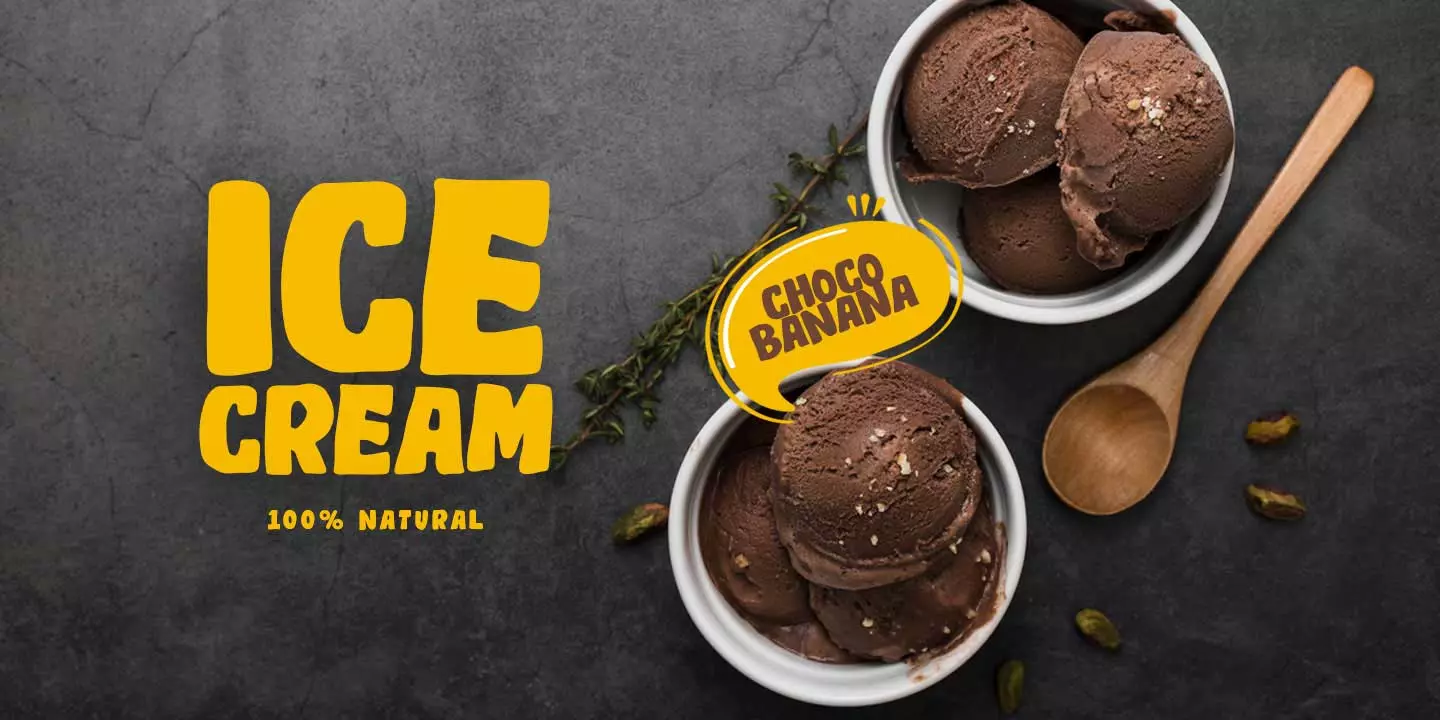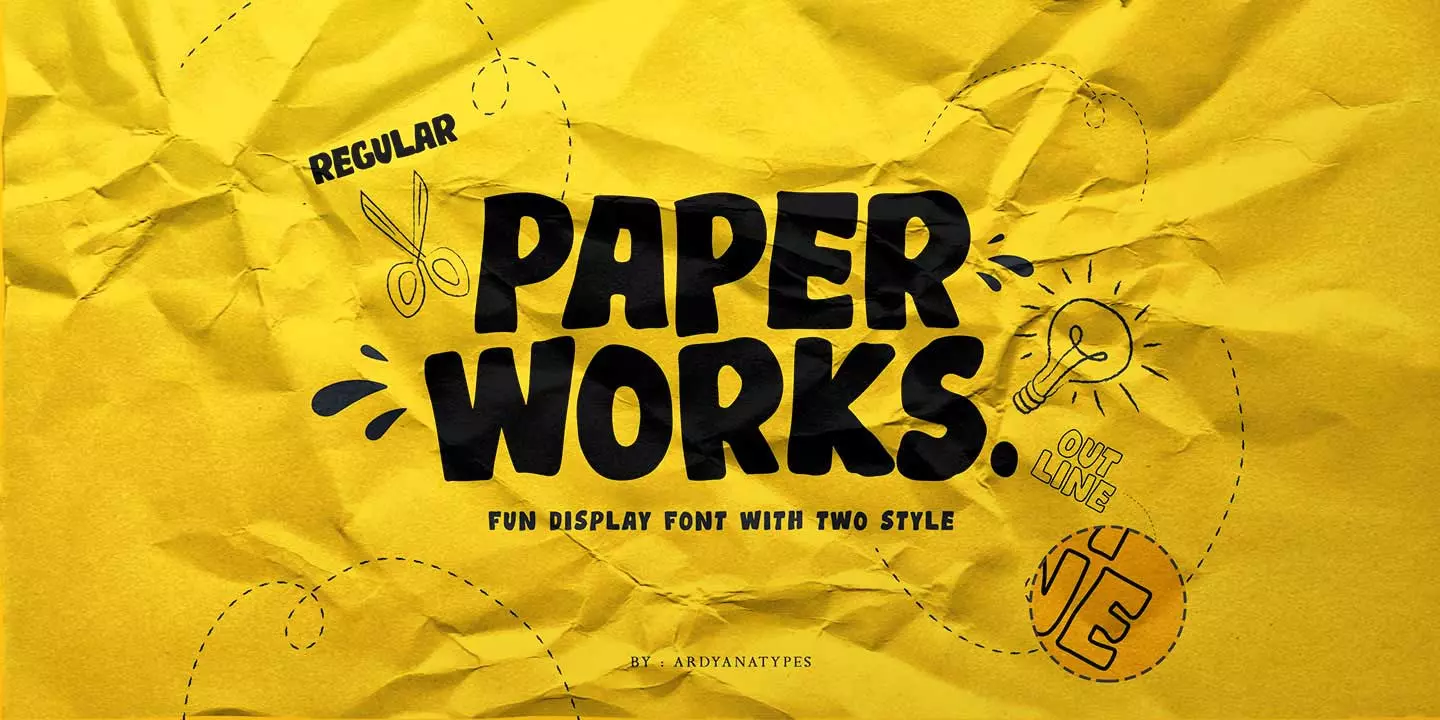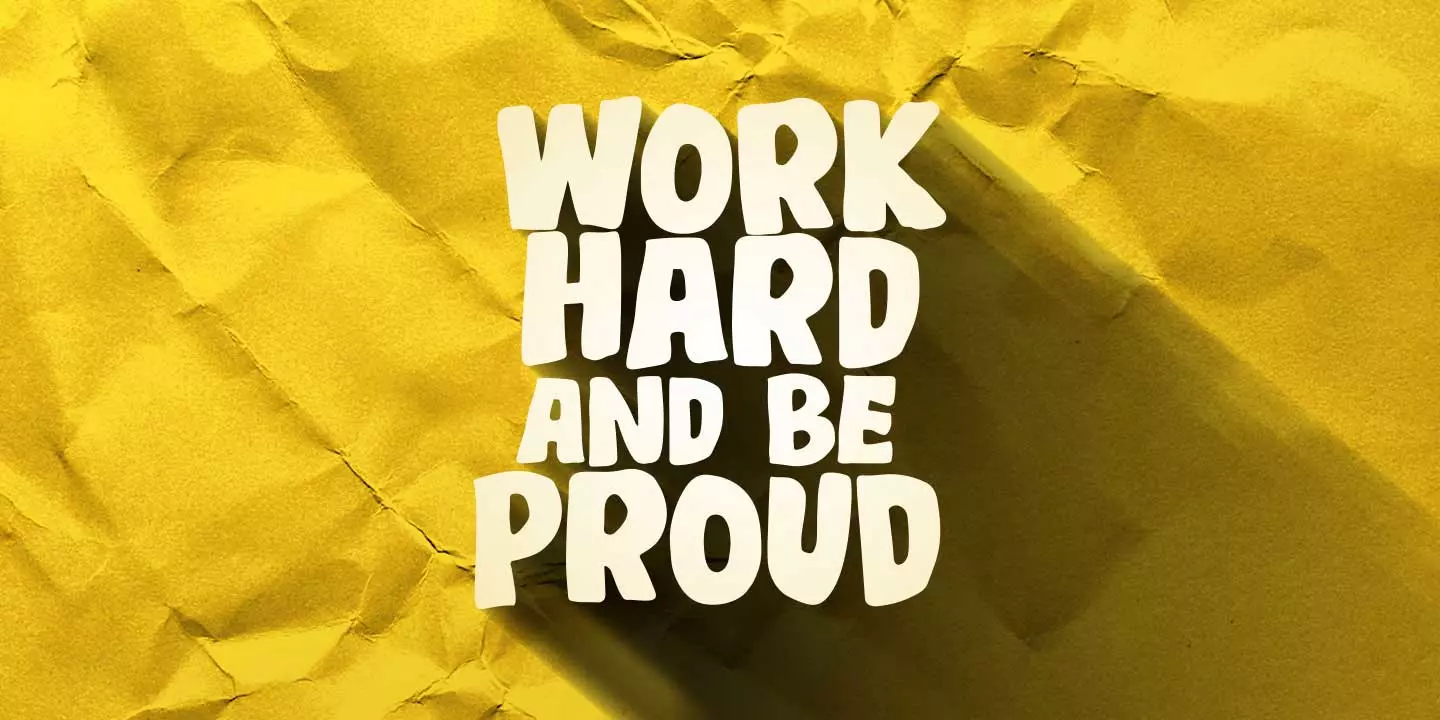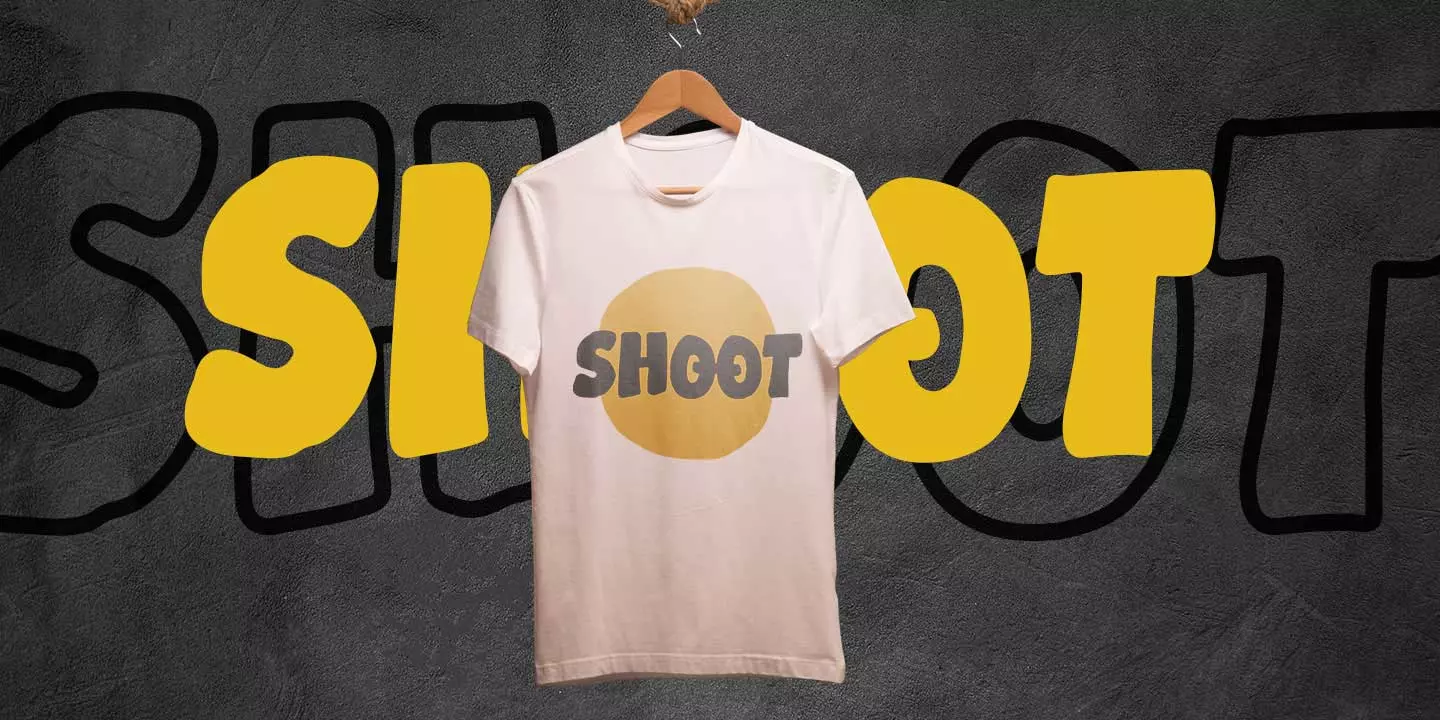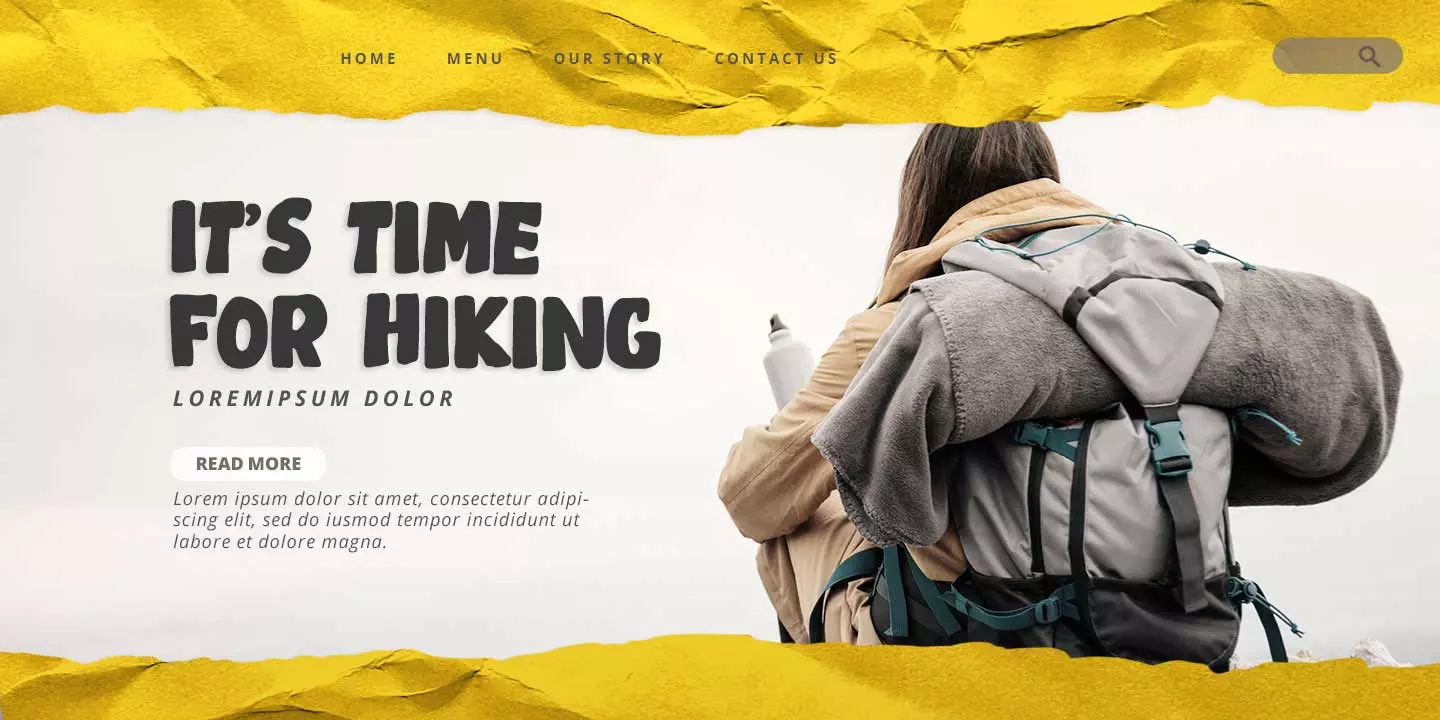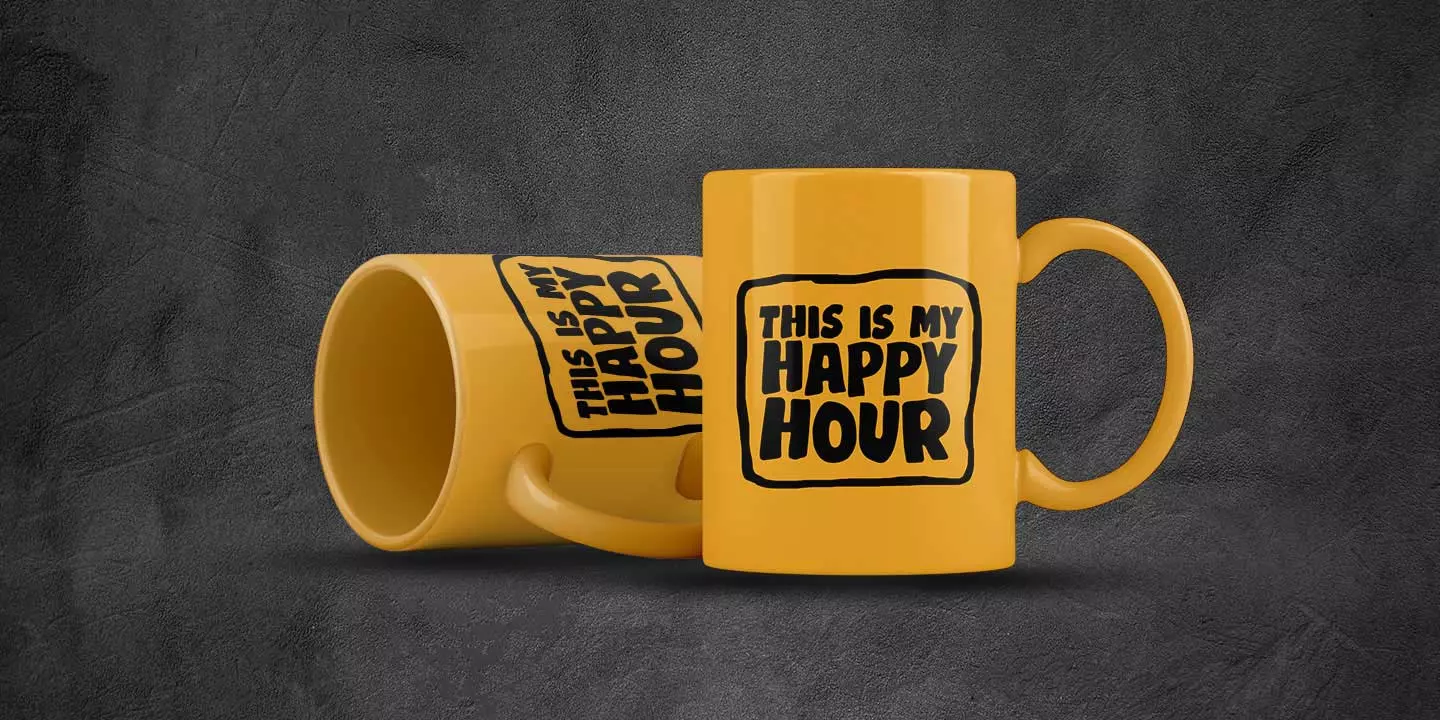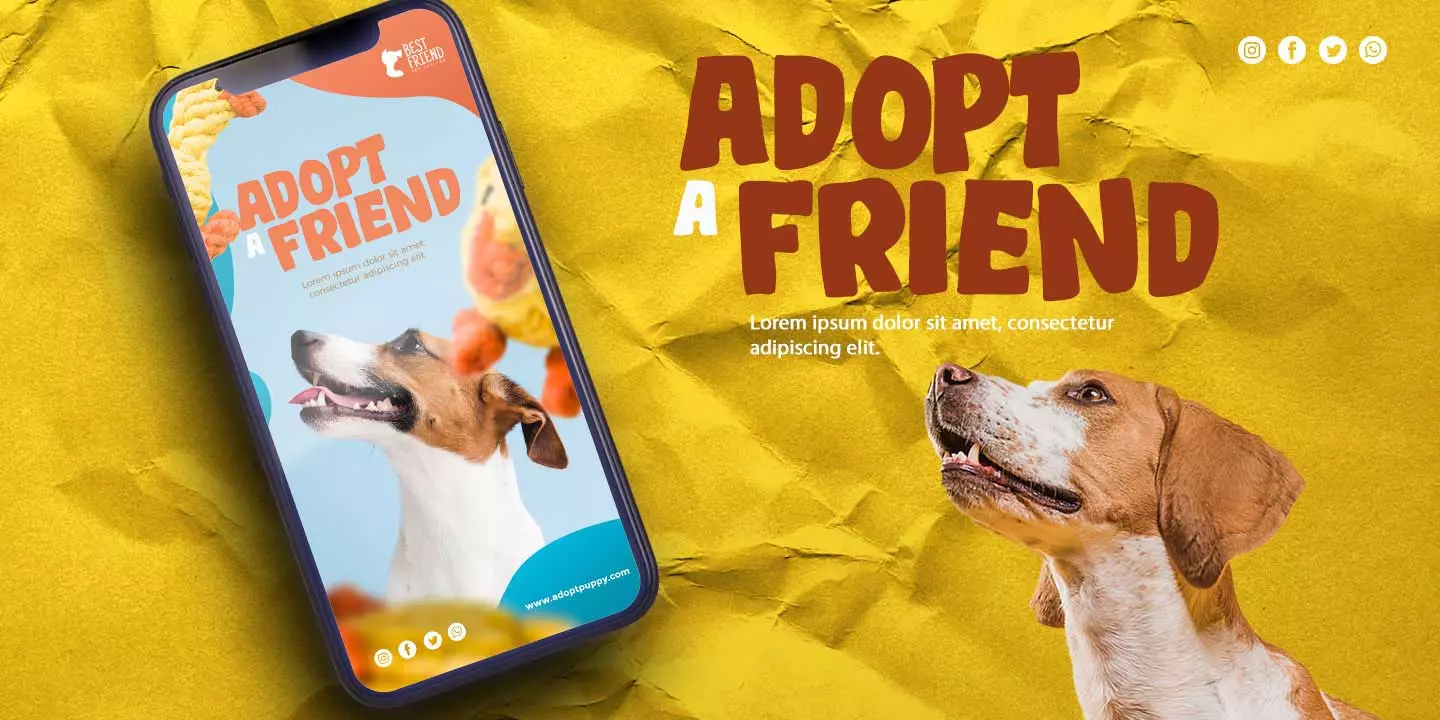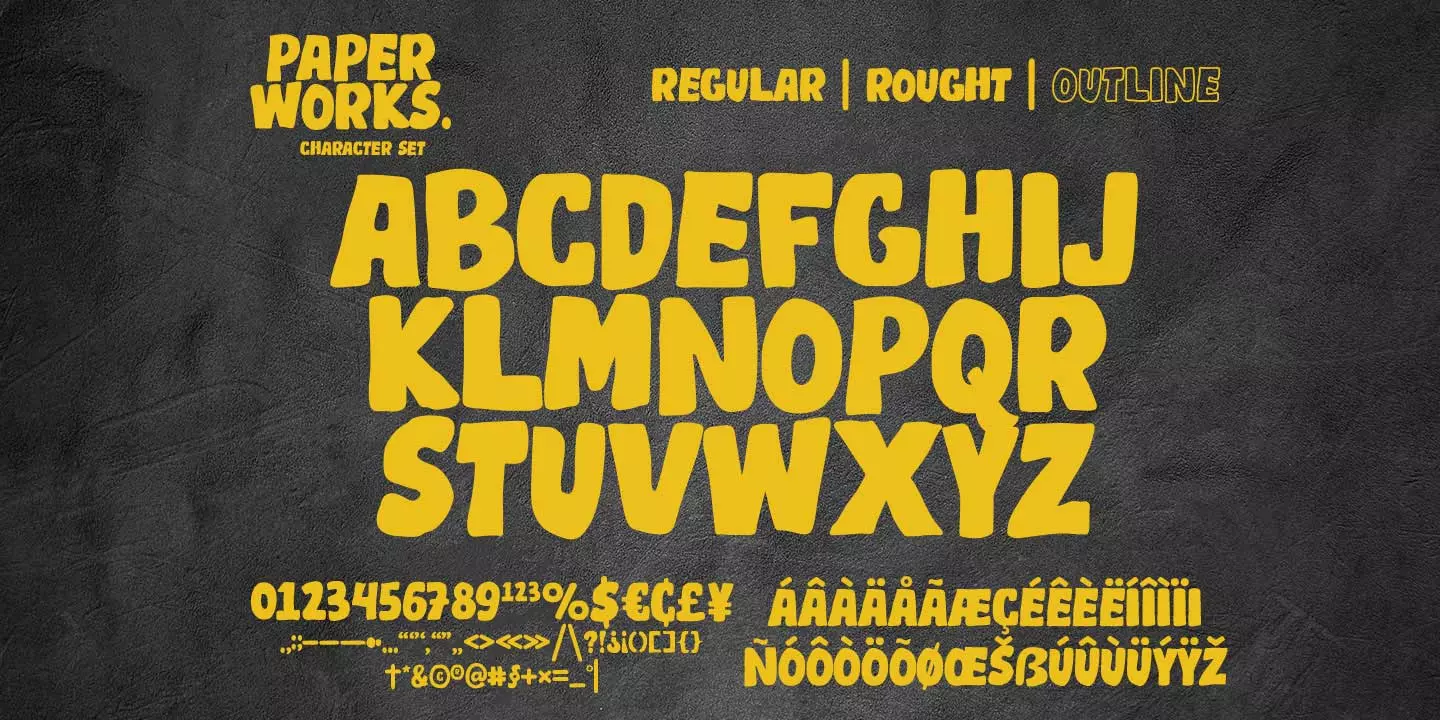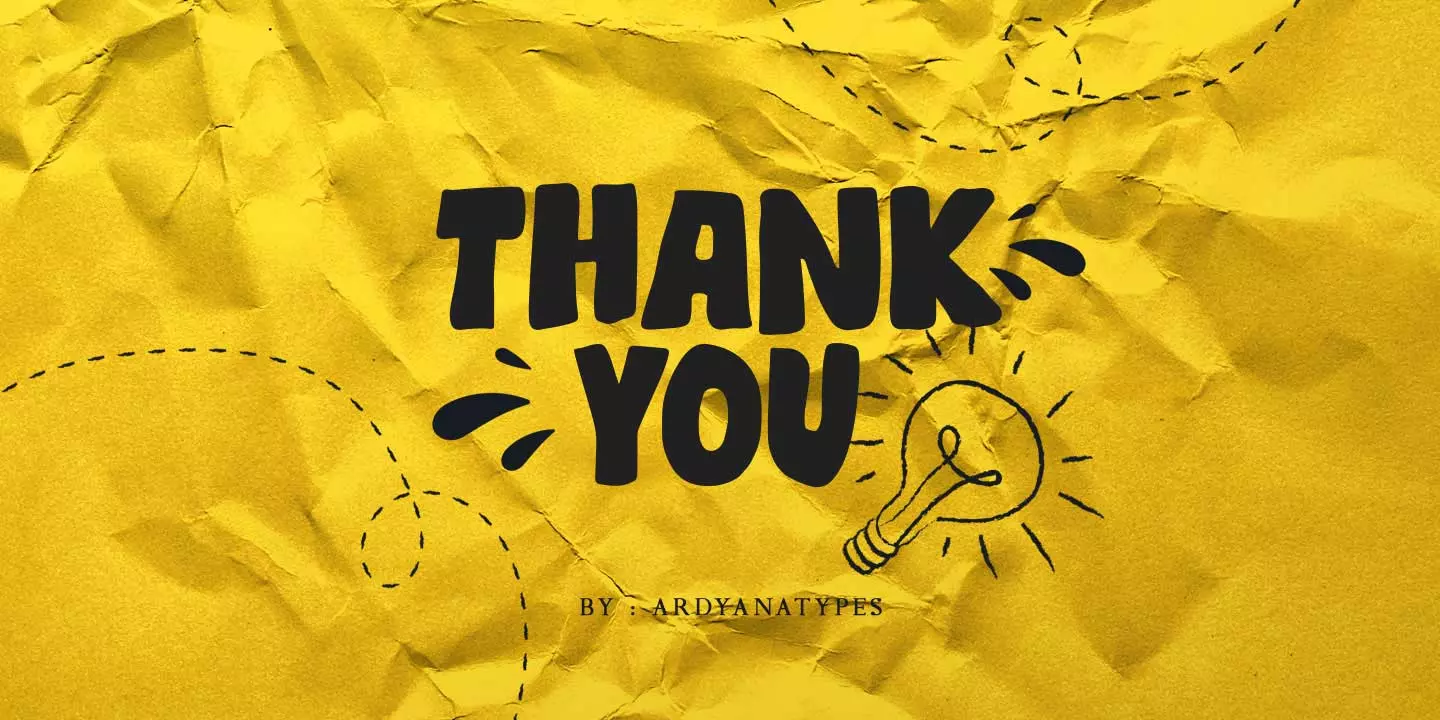
PaperWorks
3 Styles
Introduction of peper works is a font created to enhance each design with a touch of bold, unique and decisive style, paper works are made in handwriting style so it is suitable for use in product design and display titles. paper works also have 3 different styles, including Regular, Outline, and Rought, these are made to give different styles but still have the same character. paper works are included in the display font category so paper works can be used for any designs that have a cheerful, elegant and strong impression. It will also be very suitable when used on titles, logos, product posters, websites, menu books, books, and many designs that can be explored using document fonts. it will look very beautiful and easy to remember and very easy to use.